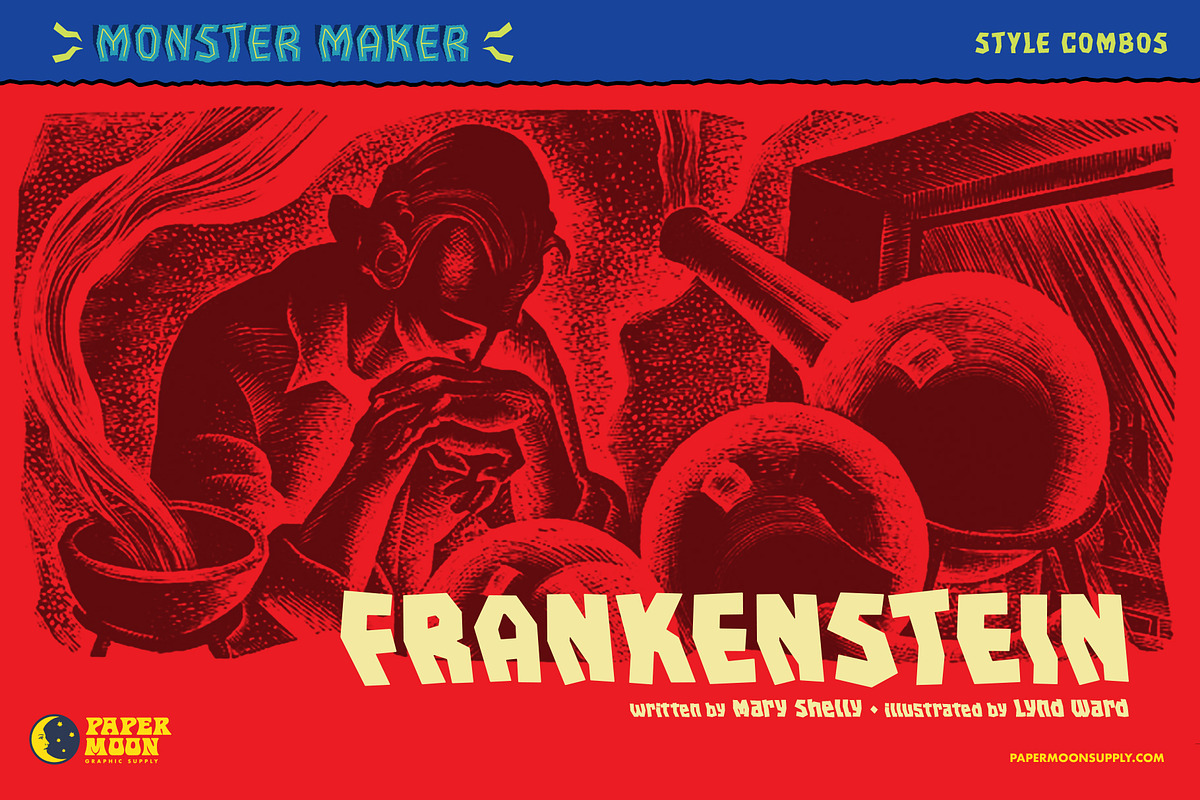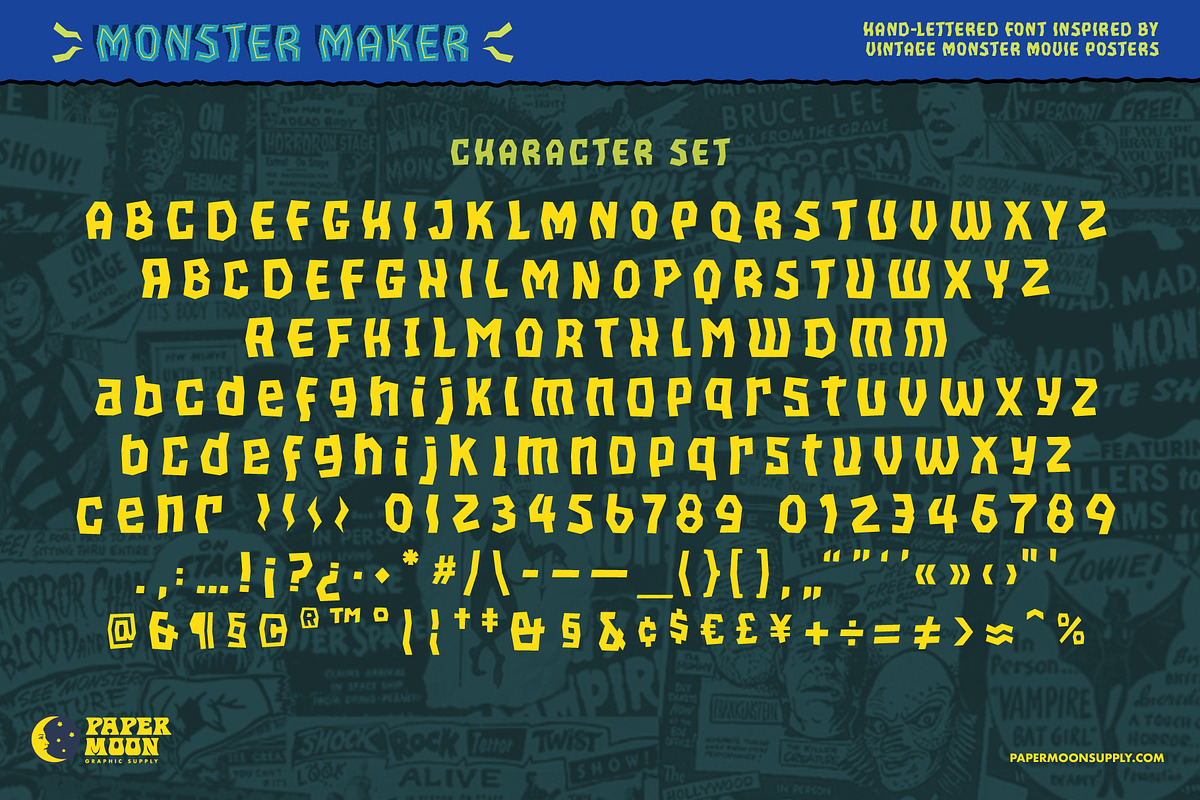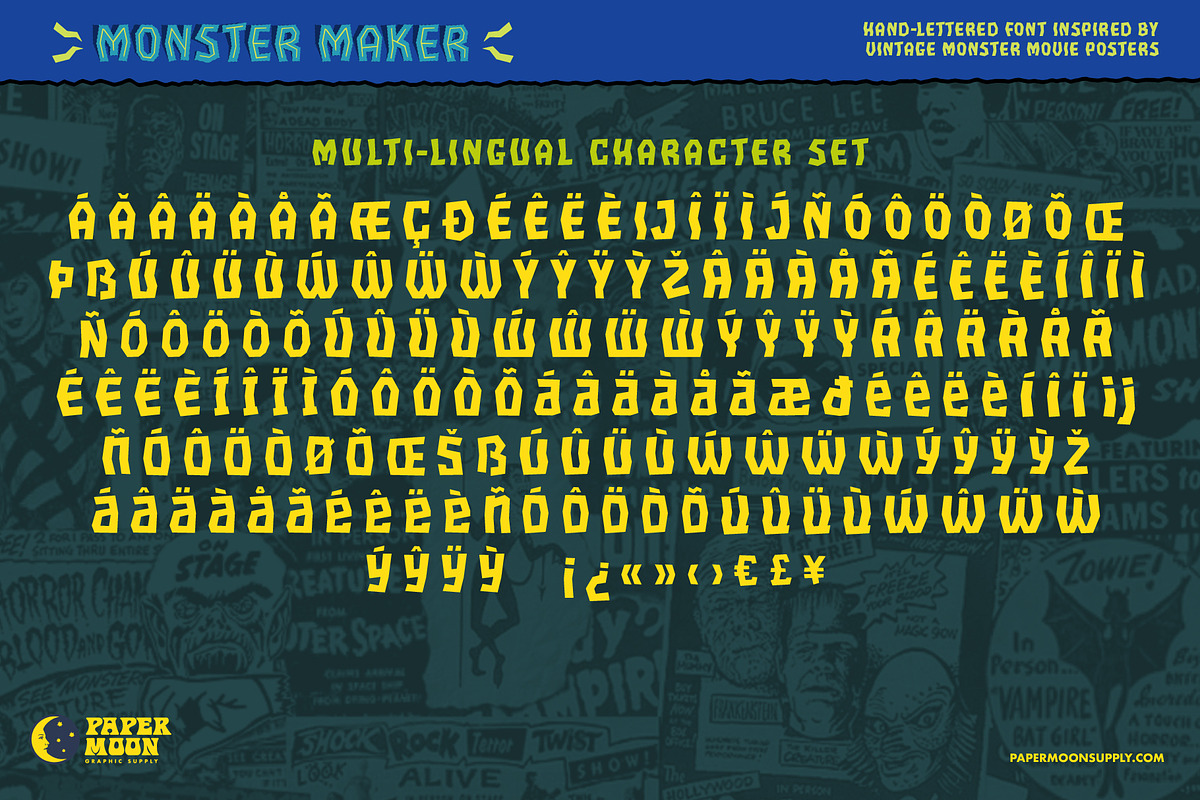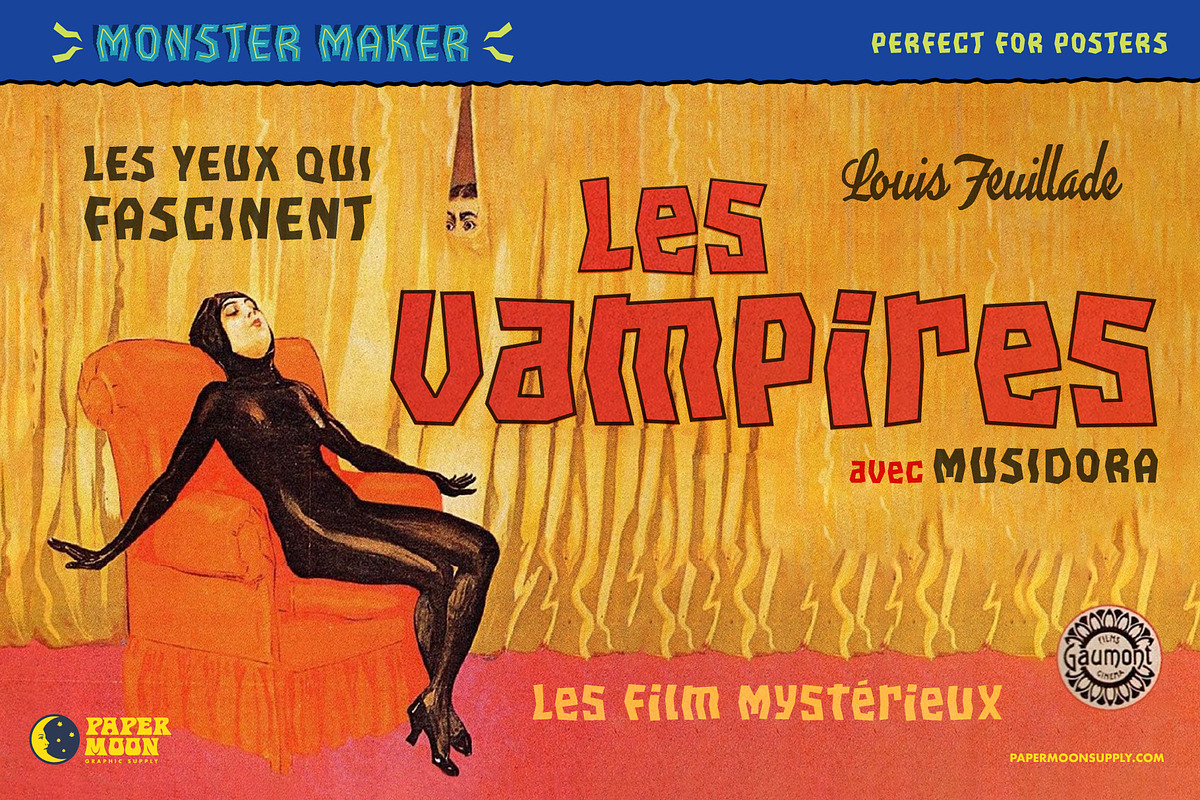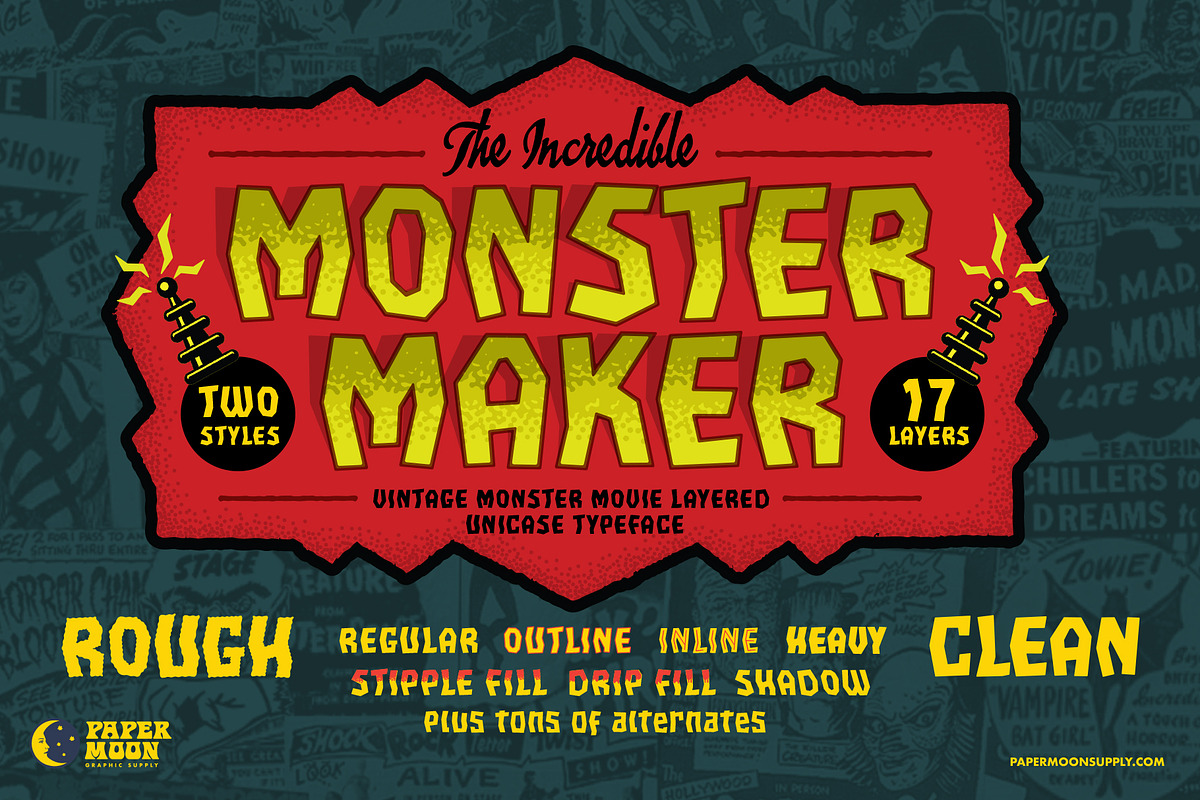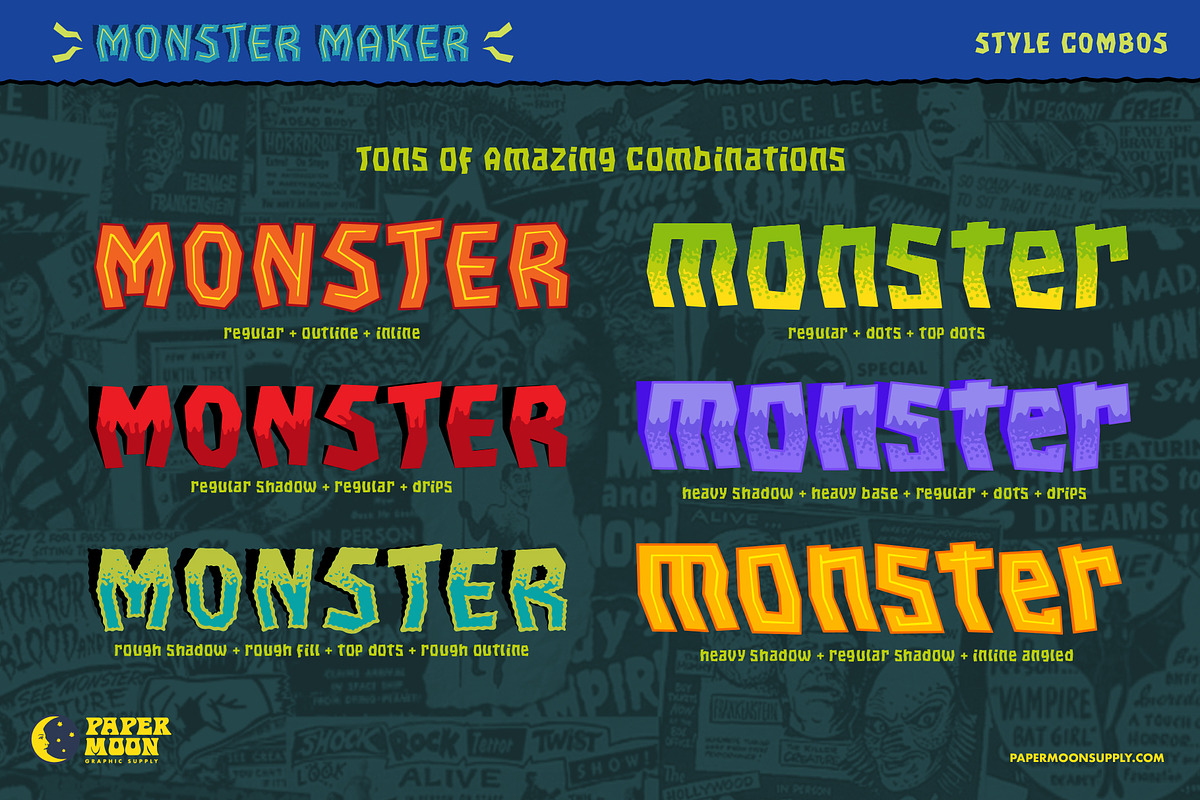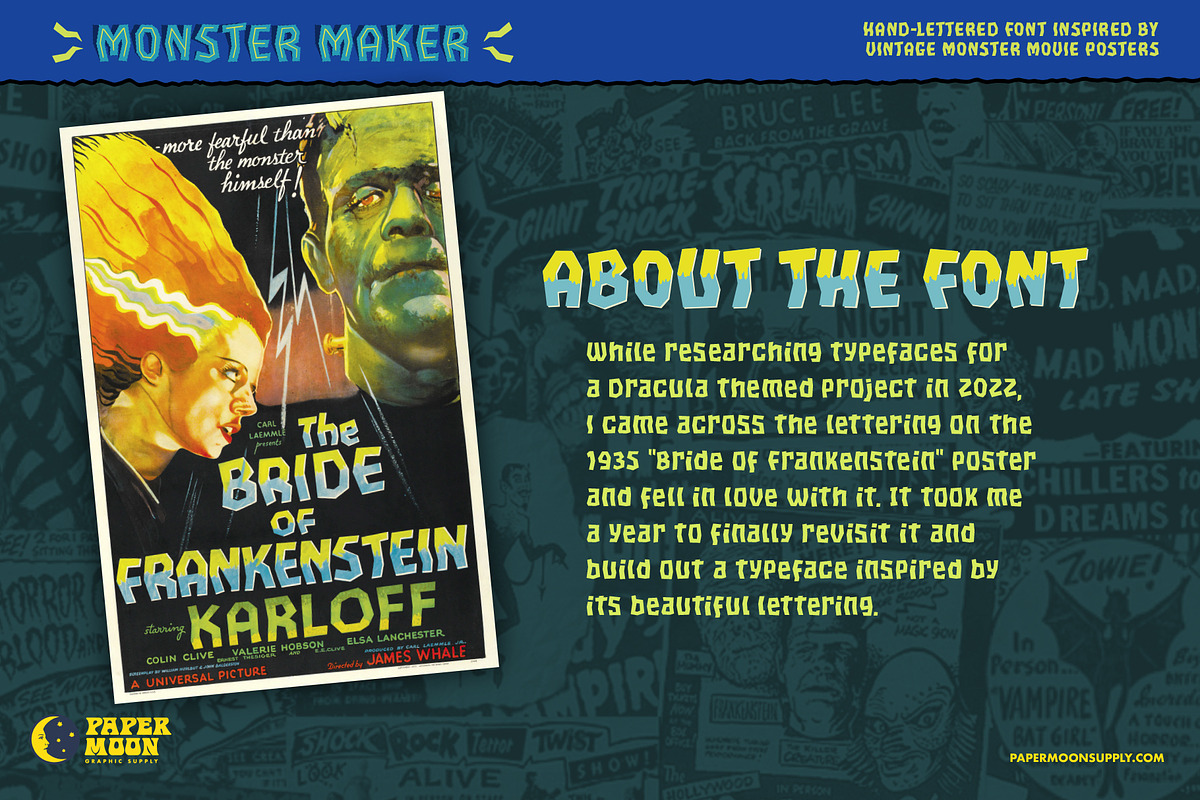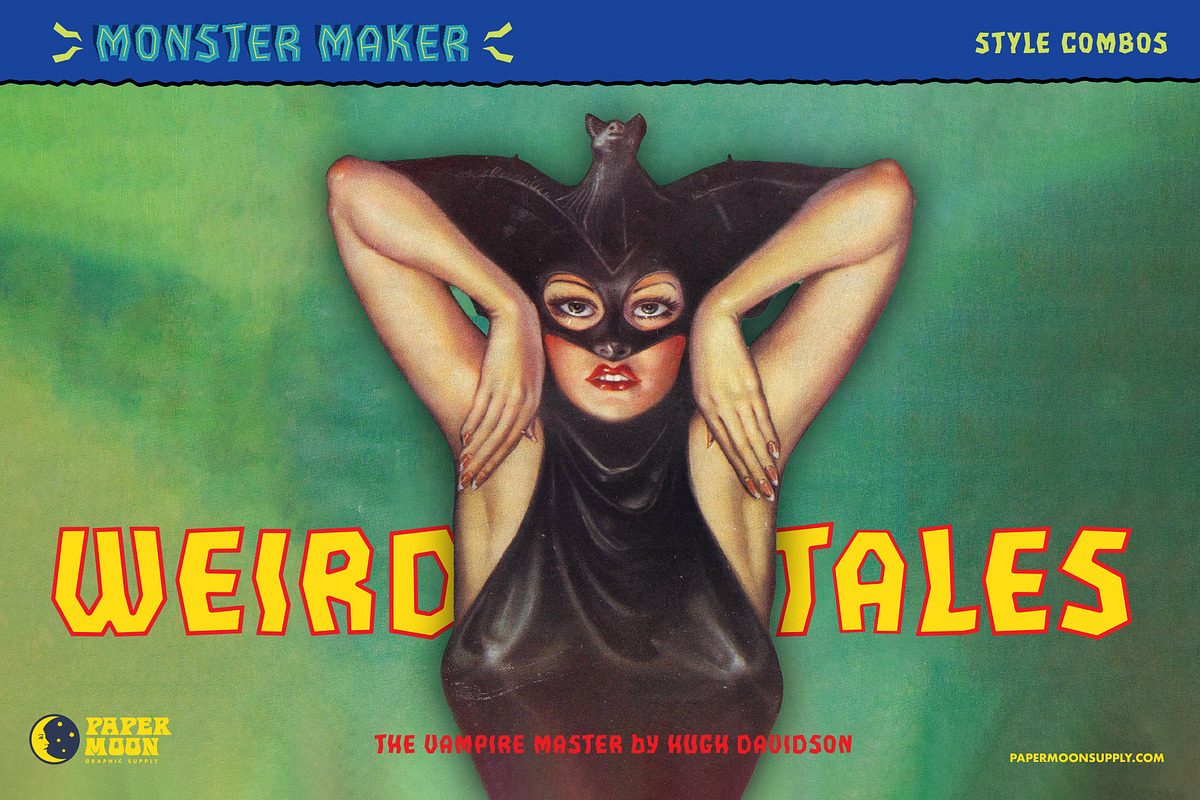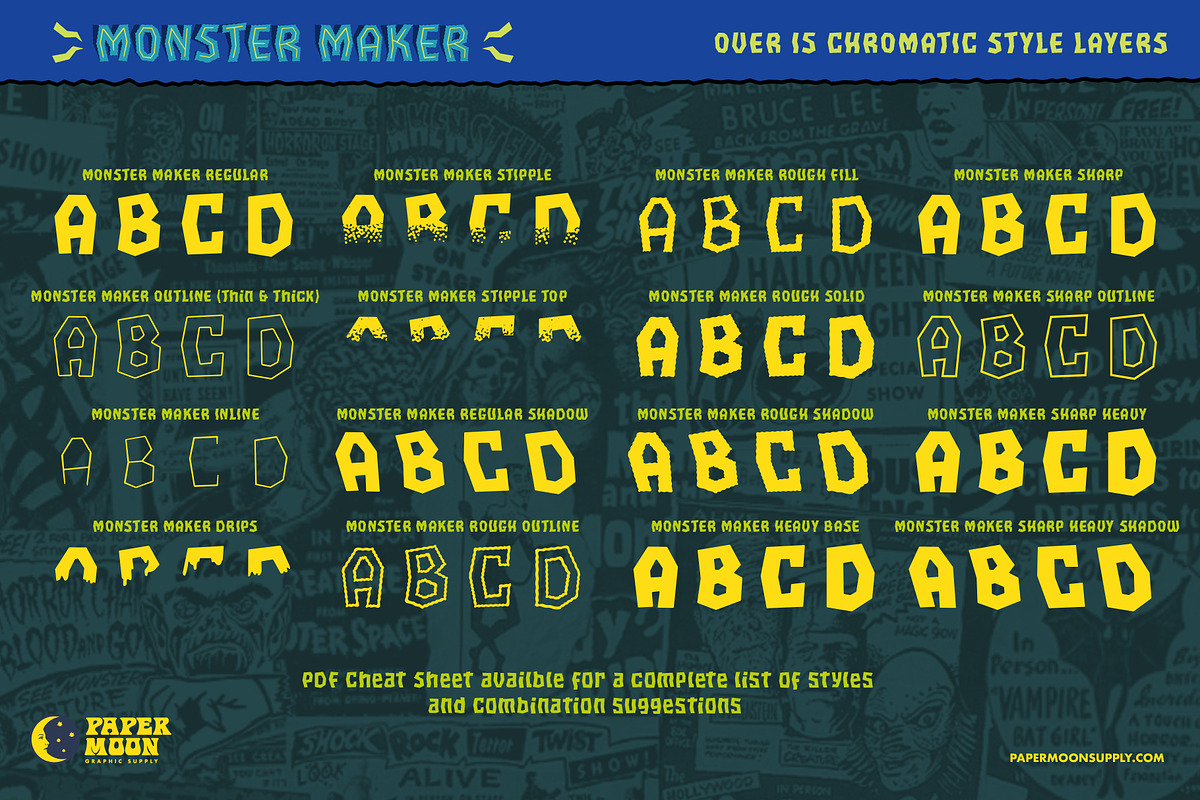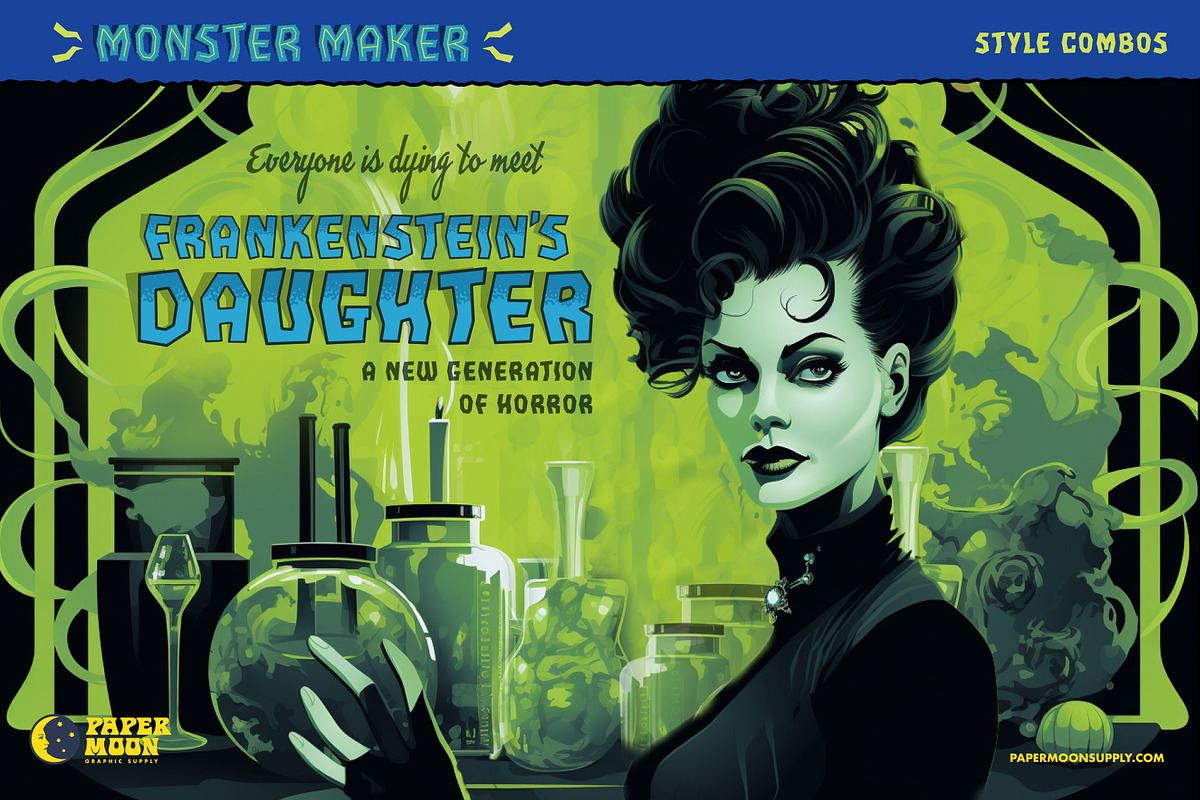
PM Monster Maker Type System
A new Halloween font system by Paper Moon Graphic Supply
The design of Monster Maker was influenced by the hand lettered typography seen on vintage horror movie posters. However, this does not restrict its creative possibilities. While it is ideal for Halloween-themed designs and monster/fantasy-based games, it can also be used for as branding for bold headlines, movie props, retro sci-fi, and vintage-style travel posters.
Plus advanced kerning pairs, tons of ligatures, and conditional alternate give the font an authentic hand-lettered look!
- Three styles: Sharp, Regular, and Rough
- Over 15 chromatic layers to create tons of amazing combinations
- Highly-detailed hand-drawn digital characters
- Over 150 OpenType contextual alternates
- Complete alphabet, number, and punctuation sets
About the Designer
Millstone was developed by award-winning illustrator, designer, and prop maker Scott Banks.